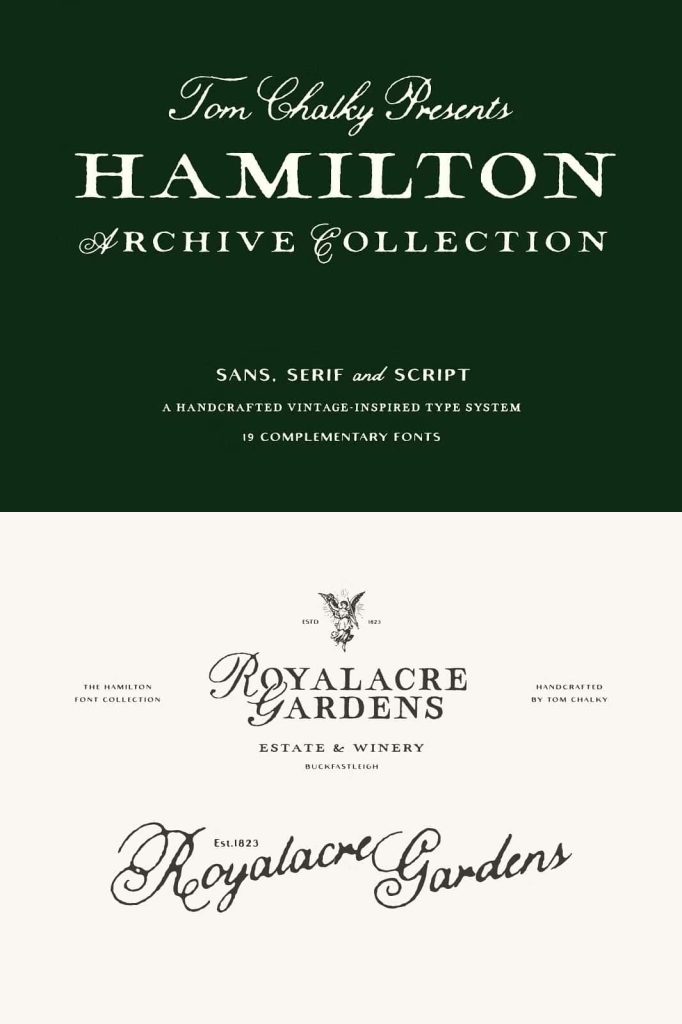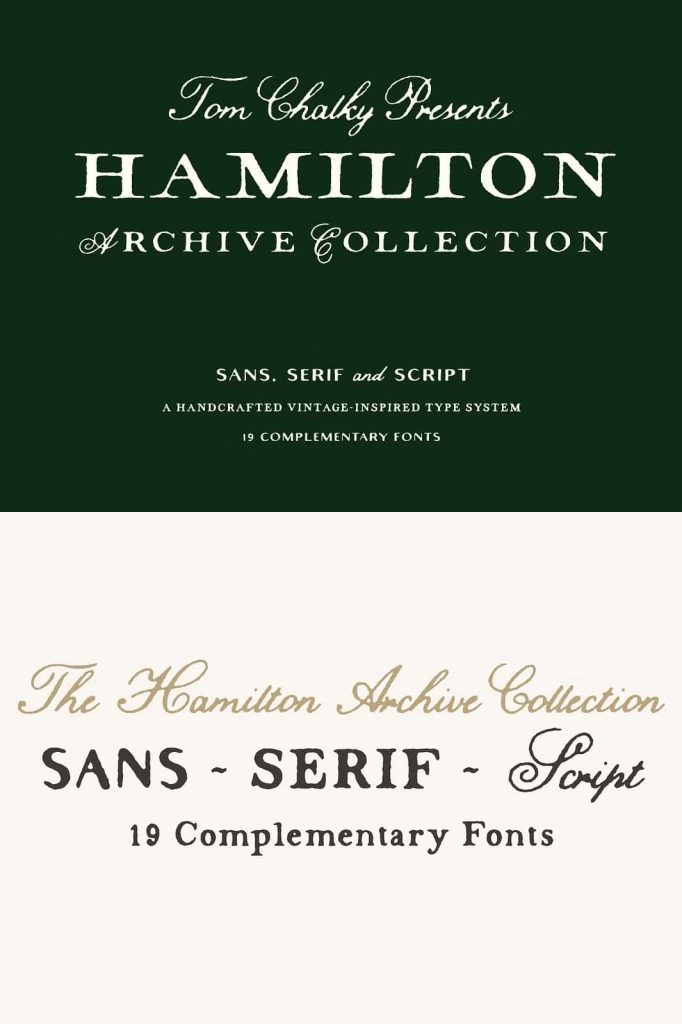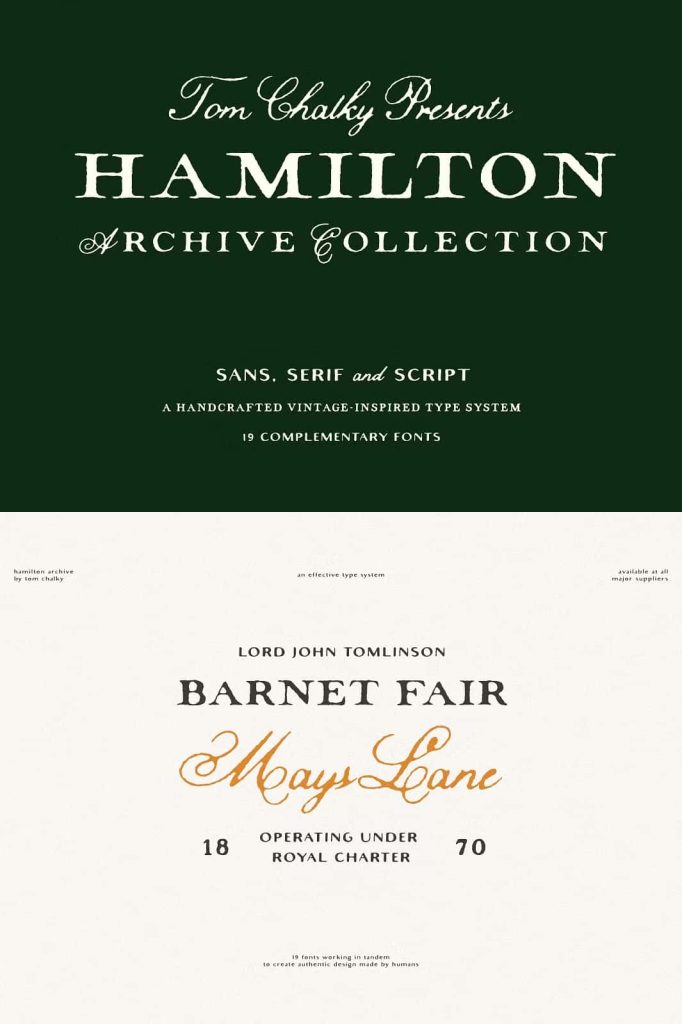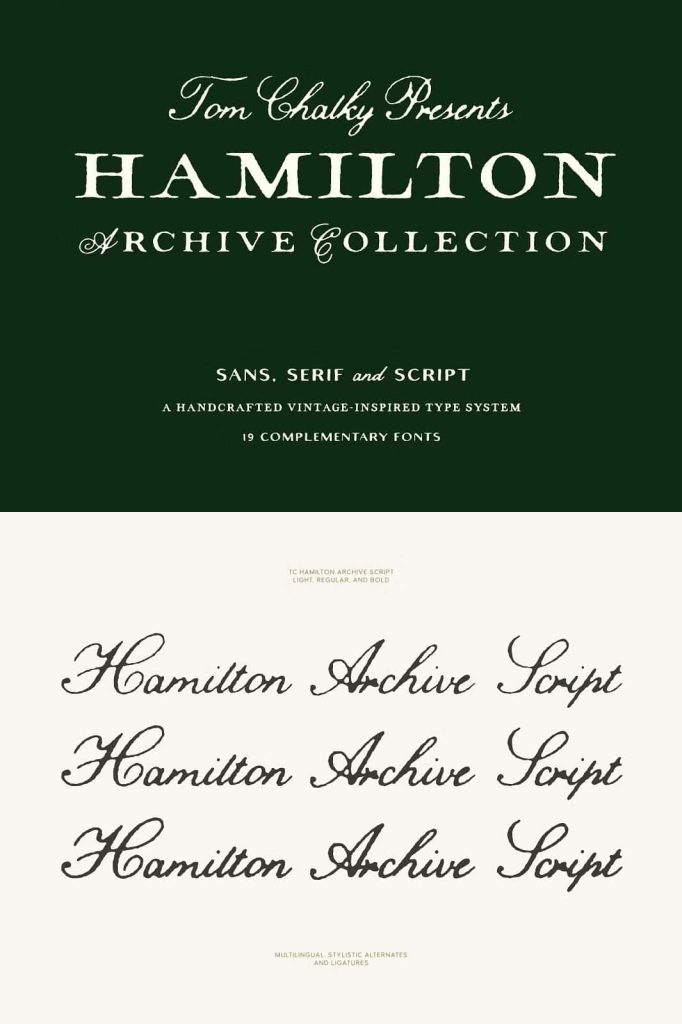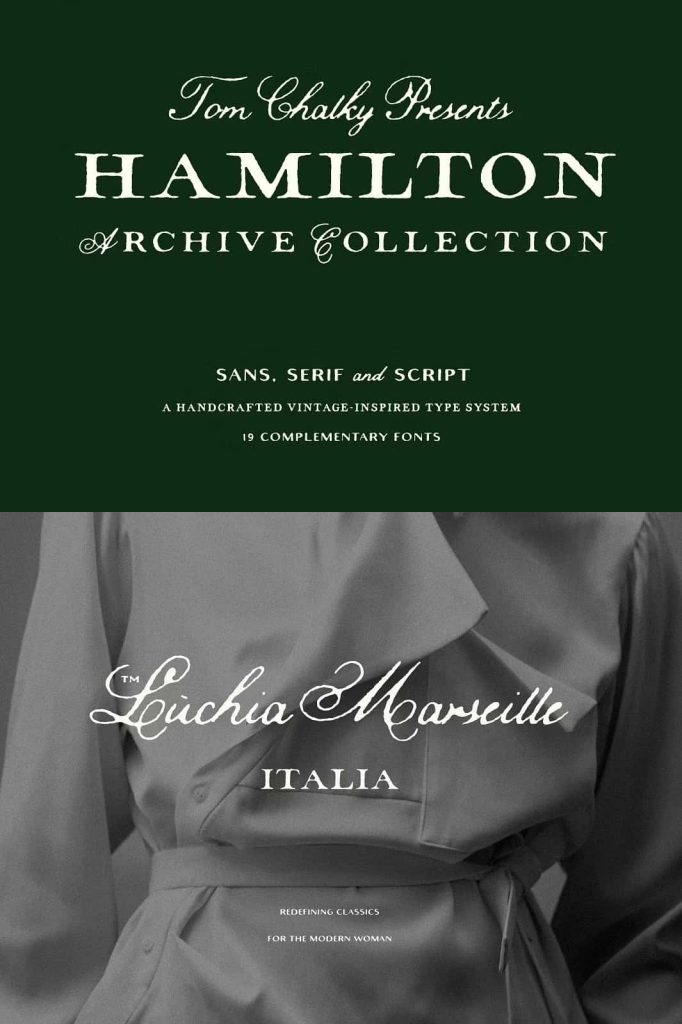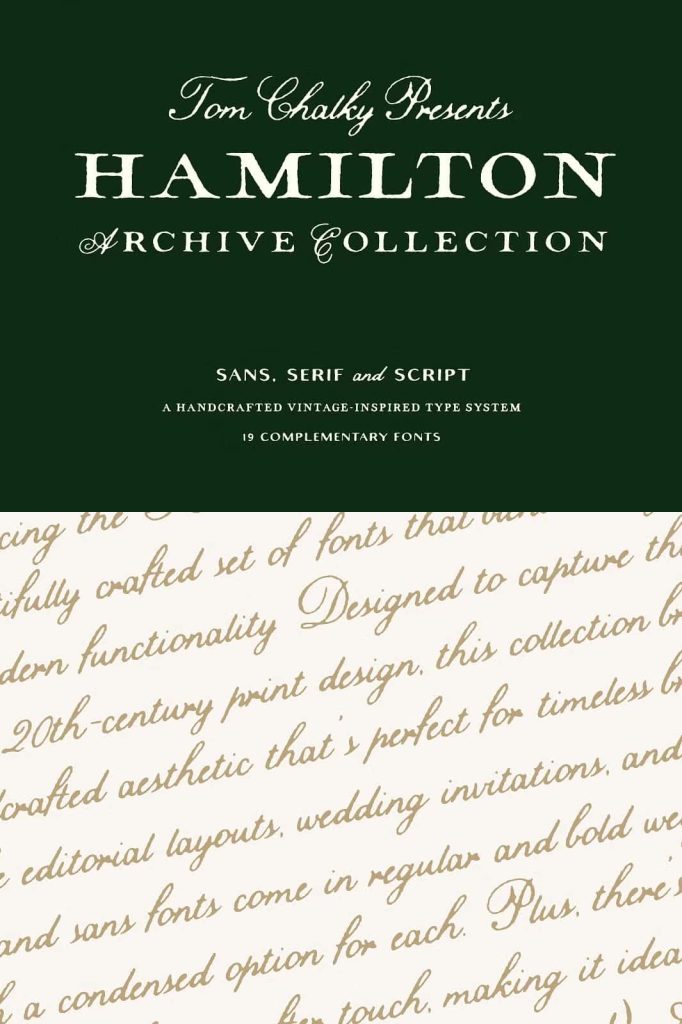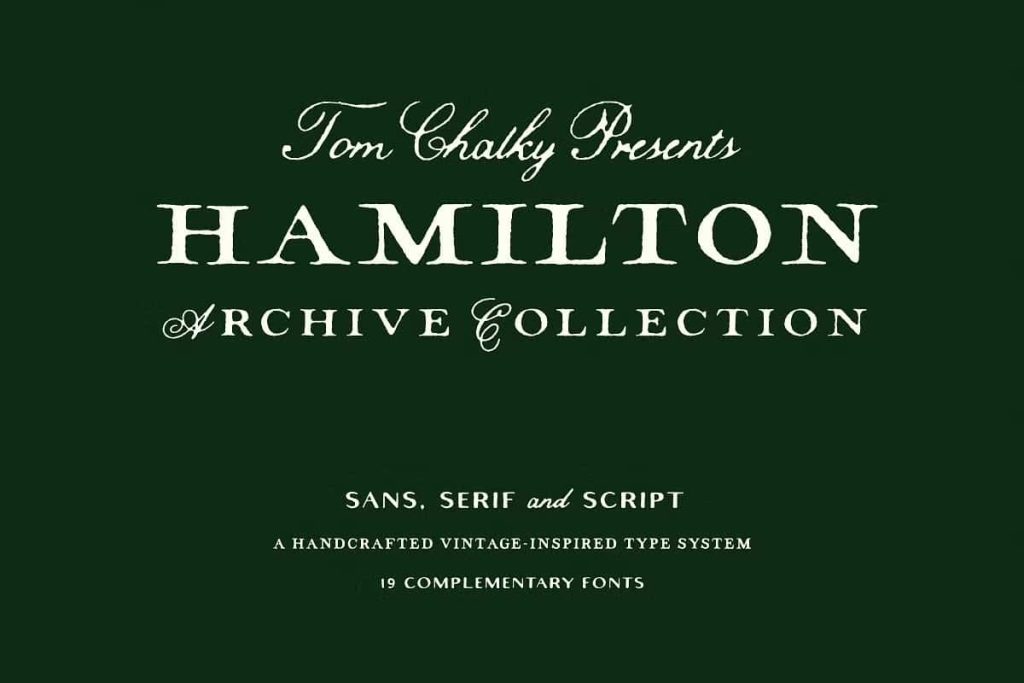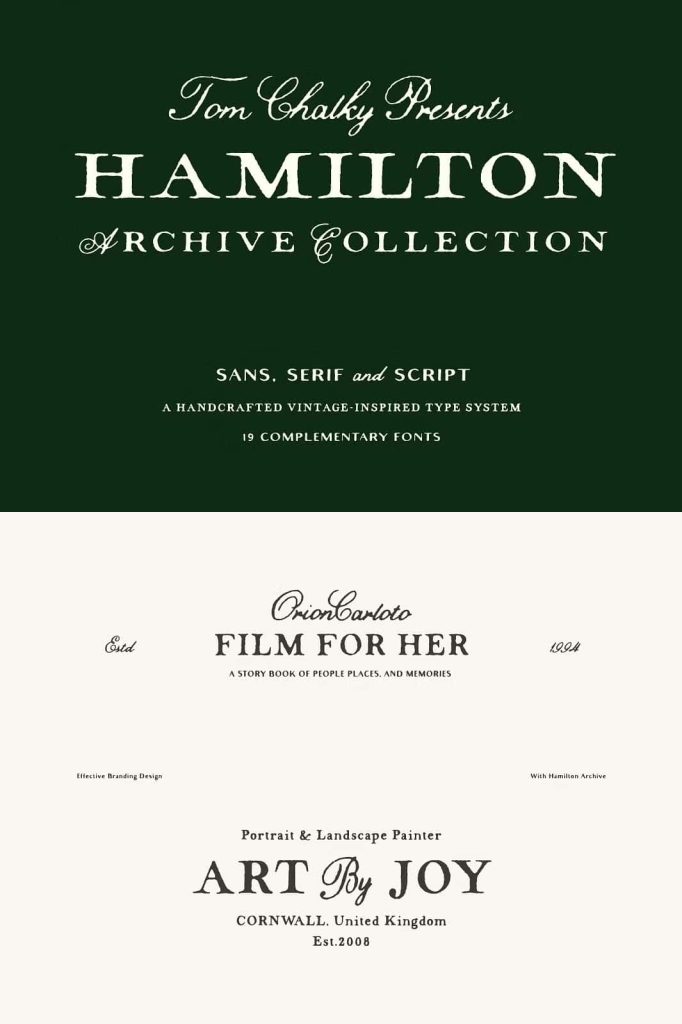
Introducing the Hamilton Archive Font Collection—a beautifully crafted set of fonts that blend vintage charm with modern functionality
Designed to capture the feel of early 20th-century print design, this collection brings a handcrafted aesthetic that’s perfect for timeless branding, bespoke editorial layouts, wedding invitations, and more.